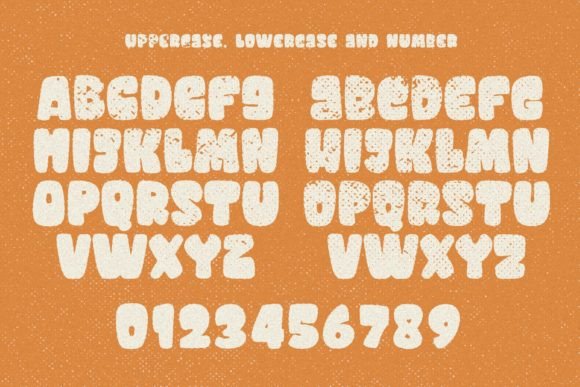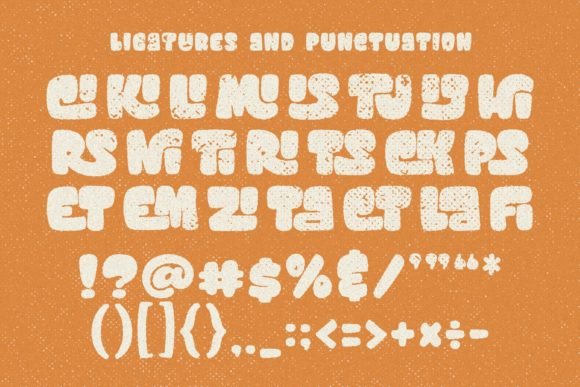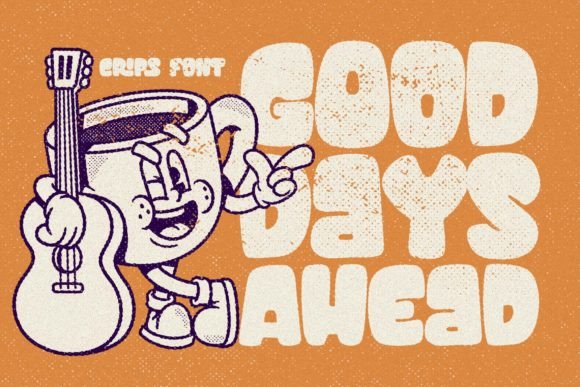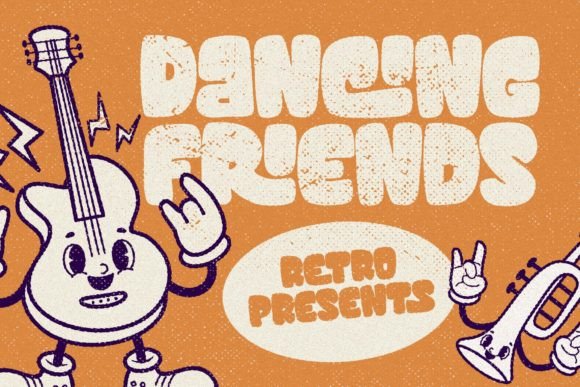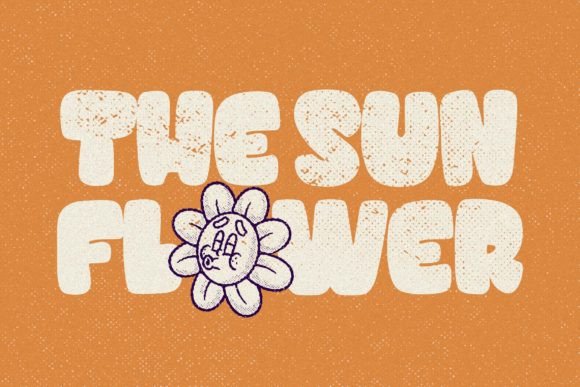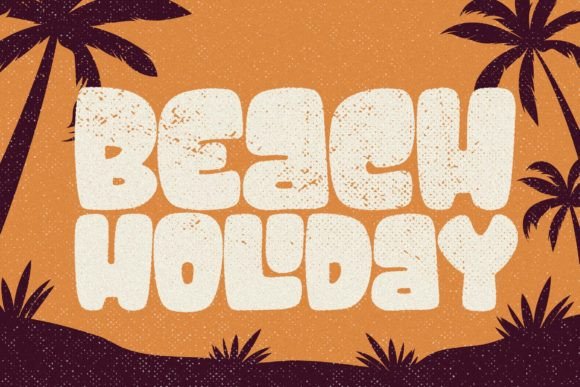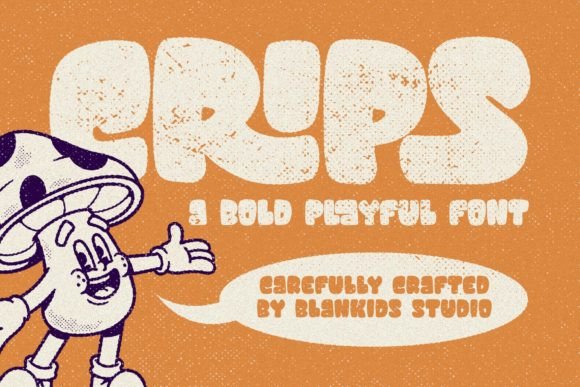
Crips Font: A Bold and Playful Typeface for Creative Projects
In the world of typography, fonts play a crucial role in conveying the tone and personality of a brand or project. For designers and crafters looking for a bold and playful typeface, the Crips Font is an excellent choice. This font is specifically designed for professional projects, such as logotypes, comics, watermarks, posters, branding, promotions, and product packaging.
What Makes Crips Font Stand Out?
The Crips Font is a unique and eye-catching typeface that features a cartoon and comic-style design for every letter. Its bold and playful appearance makes it perfect for projects that require a fun and youthful vibe. The font comes in two font combinations: regular and extrude, providing versatility and flexibility for various design applications.
Key Features of Crips Font
- Bold and Playful Design: The Crips Font boasts a bold and playful design that is sure to grab attention.
- Cartoon and Comic-Style: Every letter is designed in a cartoon and comic-style, making it perfect for comics, posters, and other creative projects.
- Two Font Combinations: The font comes in two font combinations: regular and extrude, providing options for different design needs.
- Multi-Purpose: The Crips Font is suitable for various design applications, including logotypes, watermarks, posters, branding, promotions, and product packaging.
Use Cases for Crips Font
The Crips Font is a versatile typeface that can be used in a variety of design projects. Here are some use cases:
- Logotypes: Create a bold and playful logotype for your brand or company.
- Comics and Cartoons: Use the Crips Font to add a fun and youthful touch to your comics and cartoons.
- Posters and Flyers: Create eye-catching posters and flyers with the Crips Font.
- Branding and Promotions: Use the font to create branded materials, such as business cards, brochures, and promotional items.
- Product Packaging: Add a playful touch to your product packaging with the Crips Font.
Benefits of Using Crips Font
The Crips Font offers several benefits for designers and crafters, including:
- Unique and Eye-Catching: The font’s bold and playful design makes it stand out from other typefaces.
- Time-Saving: The Crips Font is a pre-designed typeface, saving you time and effort in creating a custom font.
- Versatile: The font can be used in various design applications, making it a valuable addition to your design toolkit.
In conclusion, the Crips Font is a bold and playful typeface that is perfect for designers and crafters looking for a unique and eye-catching font for their creative projects. With its cartoon and comic-style design, two font combinations, and multi-purpose use, the Crips Font is an excellent choice for various design applications. Whether you’re creating a logotype, comic, poster, or product packaging, the Crips Font is sure to add a fun and youthful touch to your design.